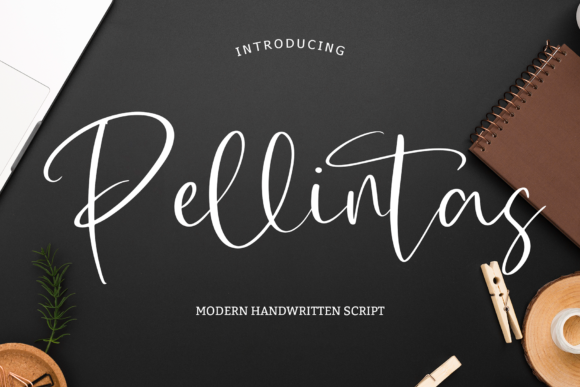
Pellintas Font: The Epitome of Elegance, Creativity, and Timeless Charm
Immerse yourself in the world of calligraphy with Pellintas Font, a script font that exudes an air of sophistication and charm like no other. Meticulously crafted by the talented formatikastd, Pellintas is an exquisite font that captures the essence of handwritten elegance, making it the perfect choice for a wide range of design projects.
Unleash your creativity and express your unique style with Pellintas. Its delicate strokes, graceful curves, and timeless appeal add a touch of refinement to any design, whether it's a wedding invitation, a heartfelt thank you card, or a captivating quote. With Pellintas, your words come alive with a captivating charm that is sure to leave a lasting impression.
Explore the endless possibilities of Pellintas and let your imagination soar. Create stunning logos that exude professionalism, design business cards that leave a lasting impression, or craft greeting cards that convey your heartfelt sentiments with an exquisite touch. The beauty of Pellintas lies in its versatility, seamlessly adapting to any project, transforming it into a work of art.
With Pellintas Font, you can effortlessly add a touch of elegance to your creative endeavors. Its delicate lines and charming handwritten style bring a sense of warmth and authenticity to your designs. Whether you're a seasoned designer or just starting out, Pellintas is the perfect font to elevate your designs and make your projects shine.